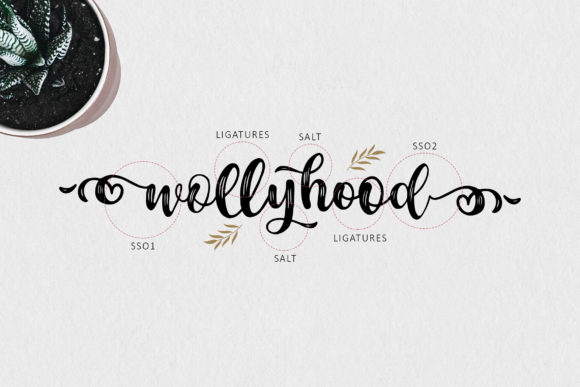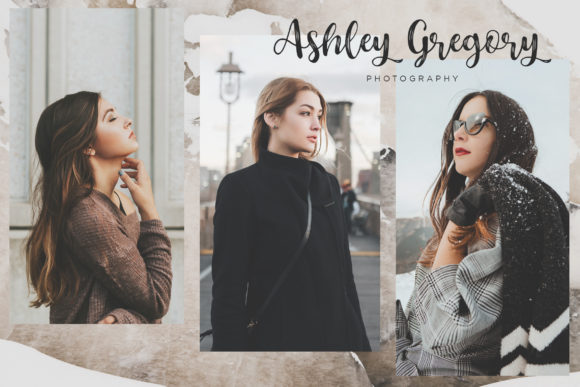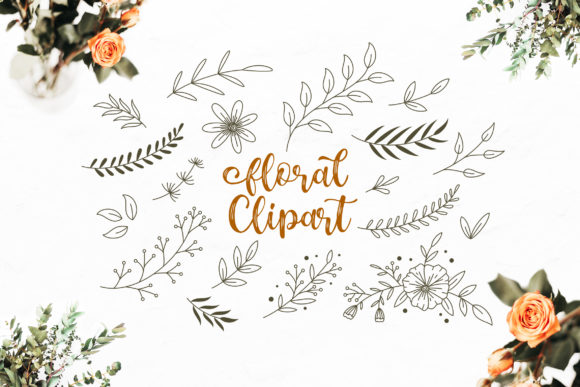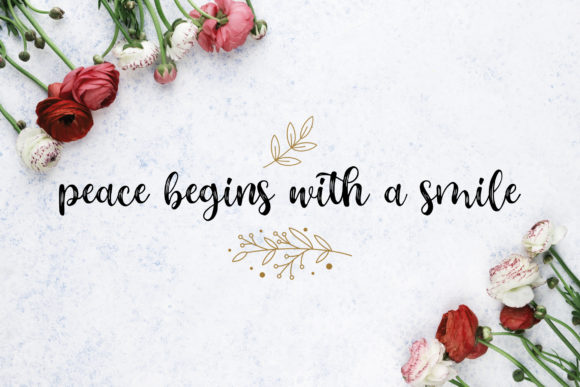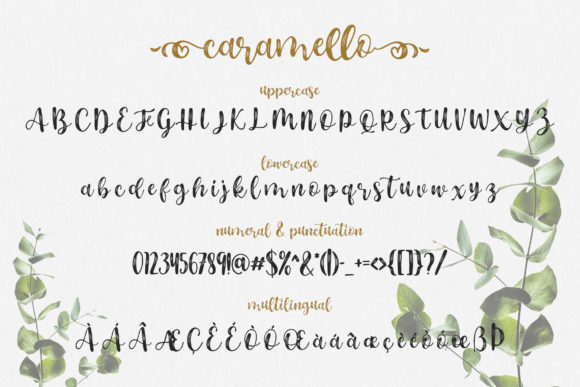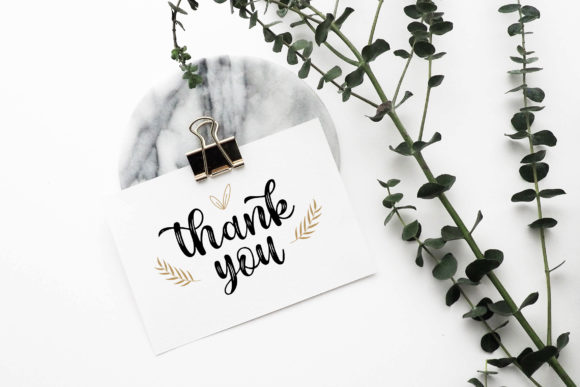
The Sweet Spot: How Caramello Font Can Elevate Your Design Projects
I’ll never forget the time I was working on a design project for a client’s wedding invitation suite. I had spent hours agonizing over the perfect layout, colors, and graphics, but something was still off. It wasn’t until I stumbled upon the Caramello font that the entire design came together. This incredibly sweet and unique handwritten font has a way of making any design project stand out, and I’m excited to share its magic with you.
What I Love About Caramello Font
- ✨ Unique and eye-catching: Caramello font has a distinctive, hand-crafted feel that sets it apart from more traditional fonts.
- ✅ Highly legible: Despite its whimsical nature, Caramello font is surprisingly easy to read, making it perfect for body text and headings.
- 💕 Emotionally resonant: The font’s warm, cursive style evokes a sense of nostalgia and playfulness, perfect for designs that require a personal touch.
While Caramello font is an amazing addition to any design project, there are a few quirks to keep in mind:
- 🤔 Limited character set: Caramello font might not have all the special characters or glyphs you need for a specific project.
- ⚠️ May not be suitable for very small text: Due to its intricate design, Caramello font can become difficult to read at very small sizes.
The Story Behind Caramello Font
Caramello font was designed by a talented type designer who wanted to capture the sweetness and playfulness of handwritten script. Inspired by vintage candy wrappers and childhood memories, Caramello font is a love letter to the joy of creativity and self-expression.
| Font Name | Caramello Font |
| Author | letterzhe |
| Is Caramello font suitable for body text? | While Caramello font is legible, it’s best used for headings and titles. For body text, consider pairing it with a clear, sans-serif font. |